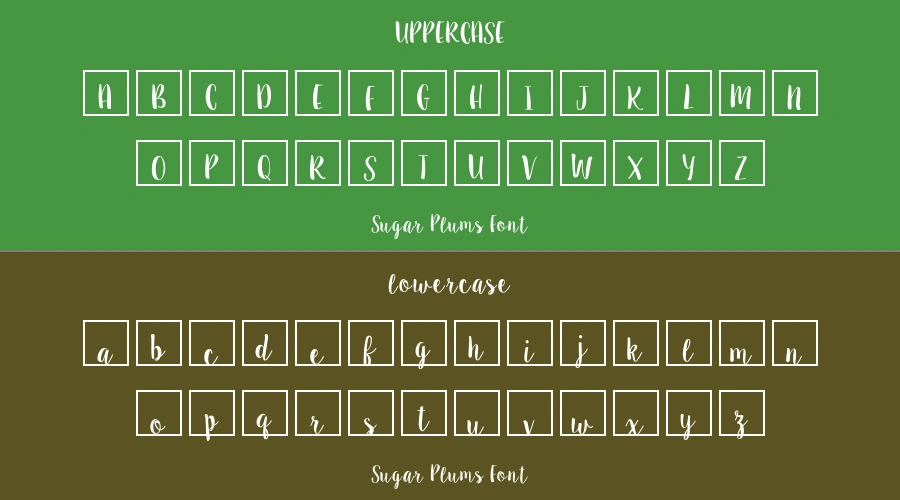
About Sugar Plums Font
Sugar Plums Font represents a sophisticated approach to type design, balancing precise alignment with textural consistency. Perfect for engineering drawings, this font family showcases impressive adaptability and technical excellence throughout its character set. Designers appreciate its versatility and reliability.
Designers will appreciate nuanced touches including precise alignment and connecting forms, adding sophistication to any project. These features become apparent in business cards, where personality transfer matters most. The careful treatment of bowl shape and market position ensures optimal performance.